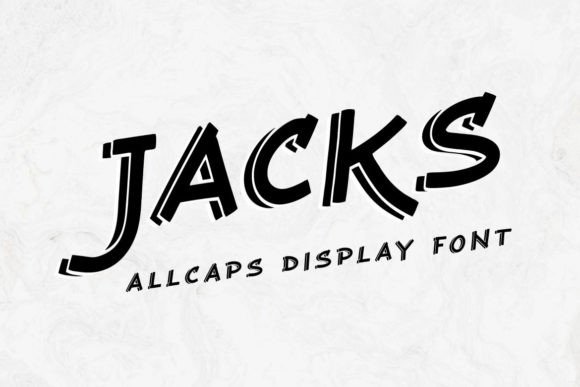
Introducing Jacks Font, the sleek and striking display font that will elevate your designs to new heights!
Crafted by the masters at Mightyfire, Jacks Font is an all-caps masterpiece that exudes confidence and sophistication. Its clean lines and bold characters create a visual impact that will captivate your audience.
Whether you're designing eye-catching headlines, stunning logos, or captivating social media graphics, Jacks Font has the power to transform your words into unforgettable visual experiences. Its versatility extends from minimalist branding to bold advertising campaigns, ensuring that you can unleash your creativity with endless possibilities.
Jacks Font is more than just a font; it's a design tool that empowers you to express your brand's personality with style and impact. Its crisp edges and sharp angles add a touch of modernity and professionalism to any project, making it the perfect choice for businesses and entrepreneurs seeking to make a lasting impression.
Immerse yourself in the world of Jacks Font and discover the limitless possibilities it holds for your designs. Embrace the power of clean lines, bold characters, and endless creativity. Download Jacks Font today and let your imagination soar!